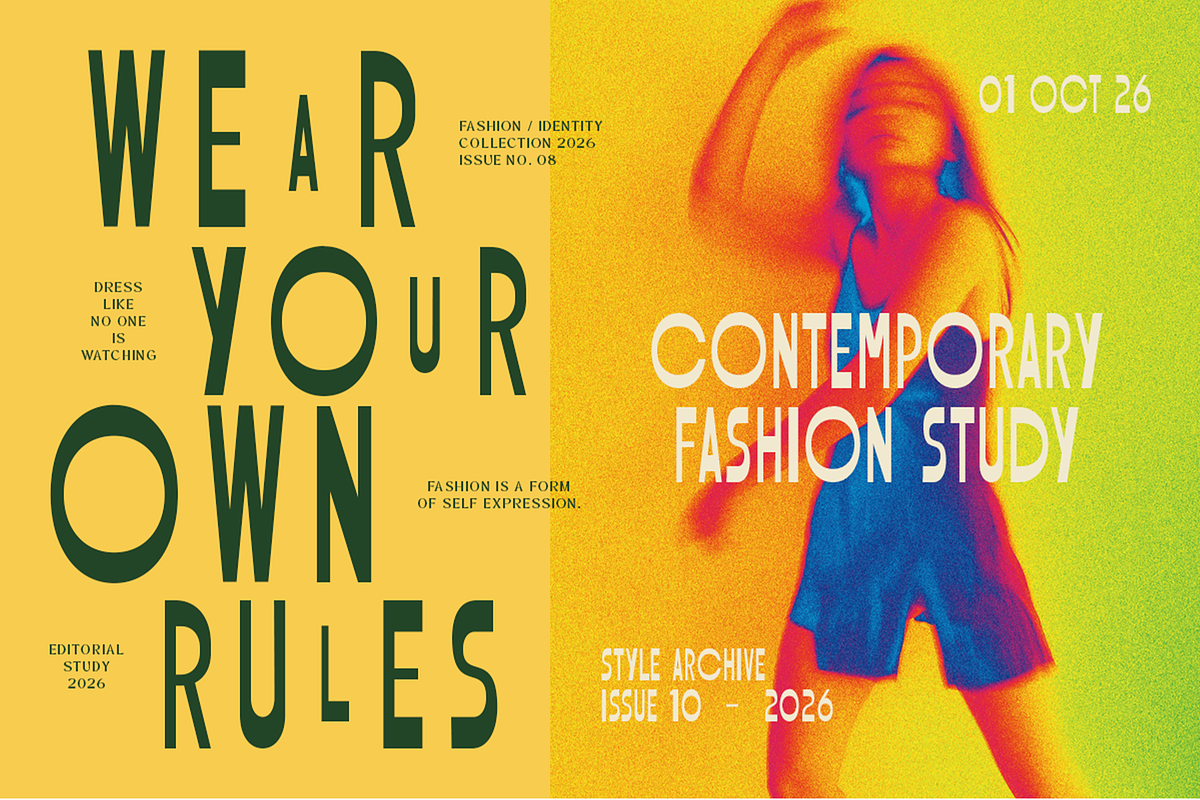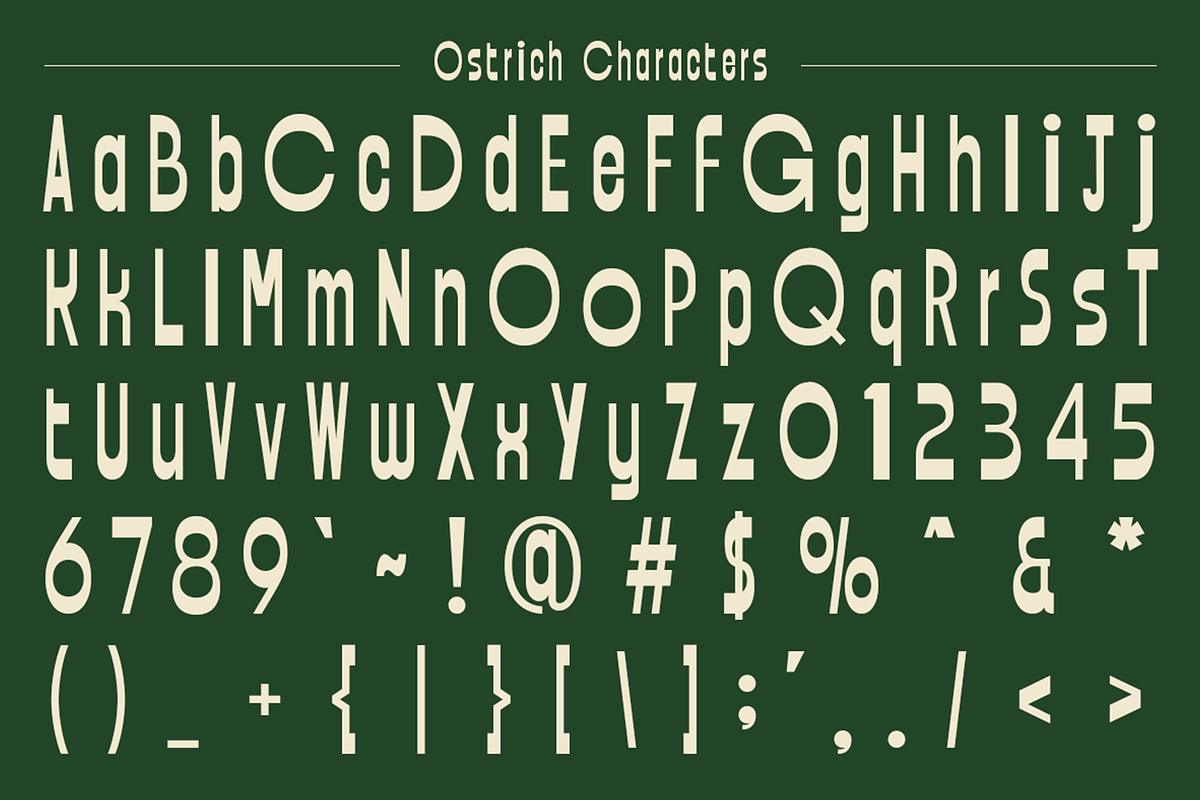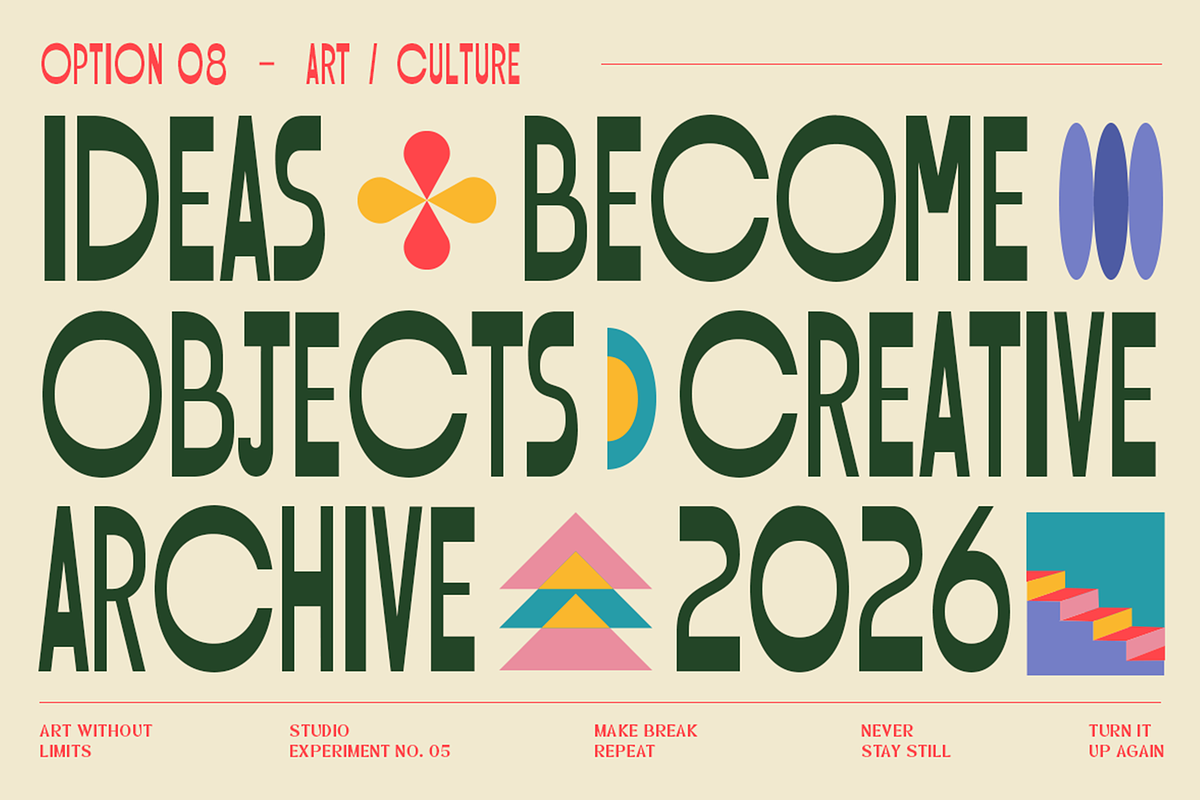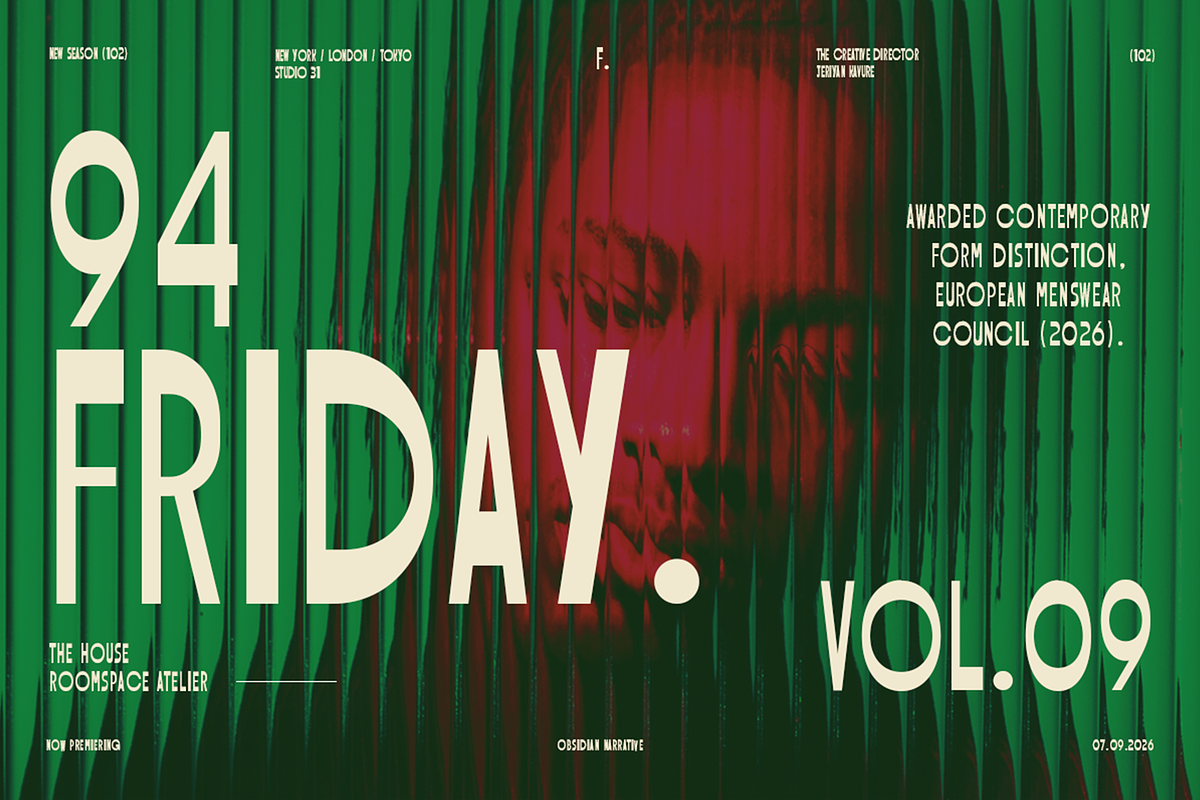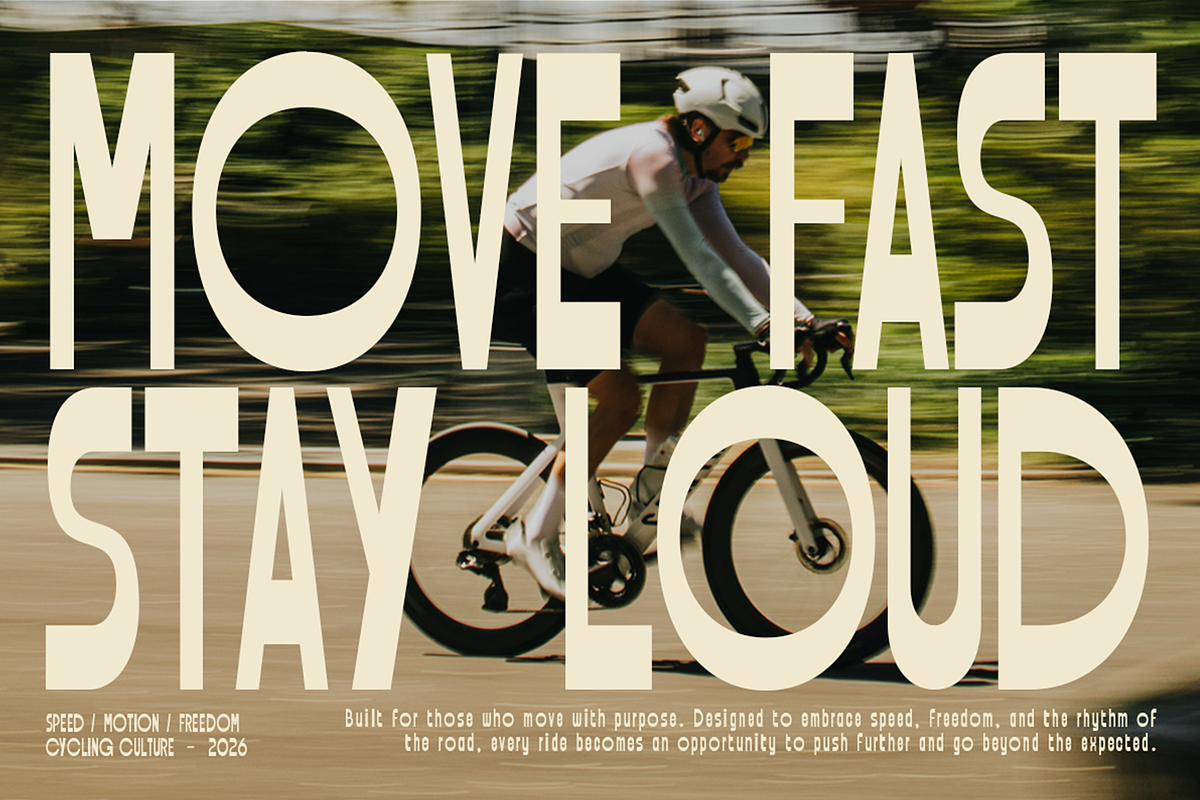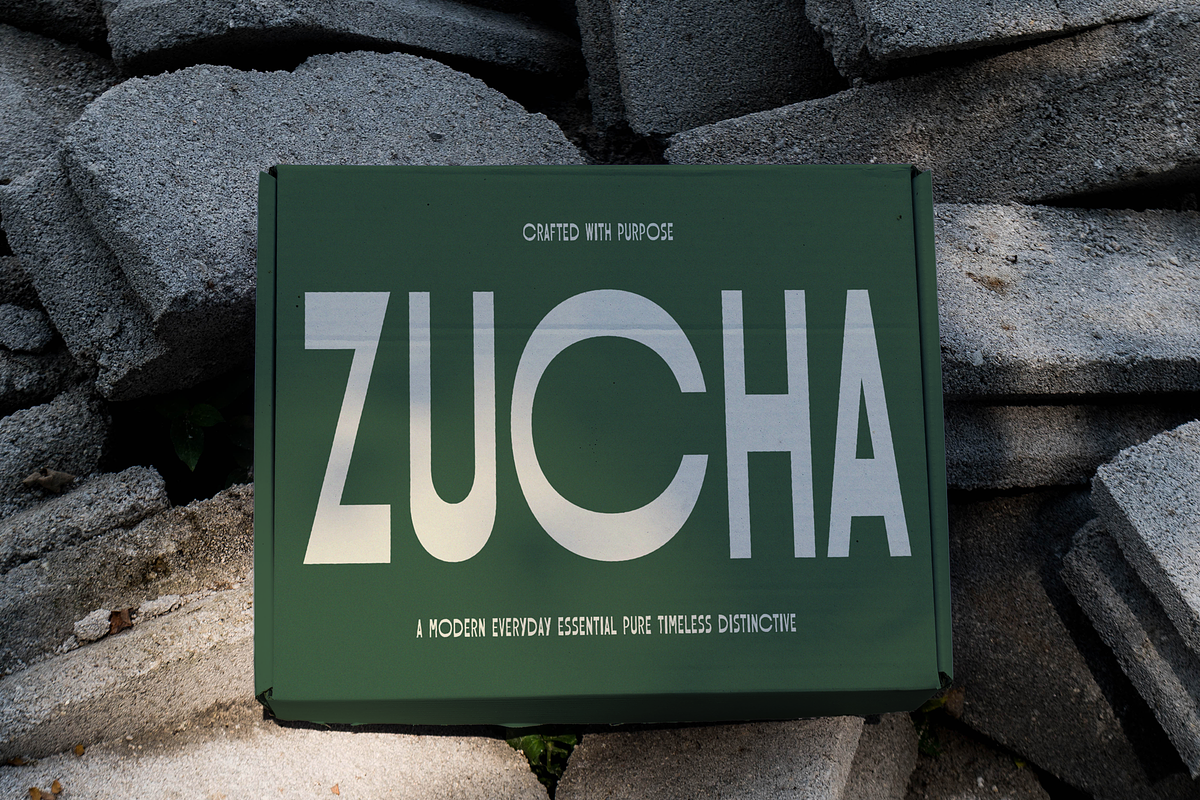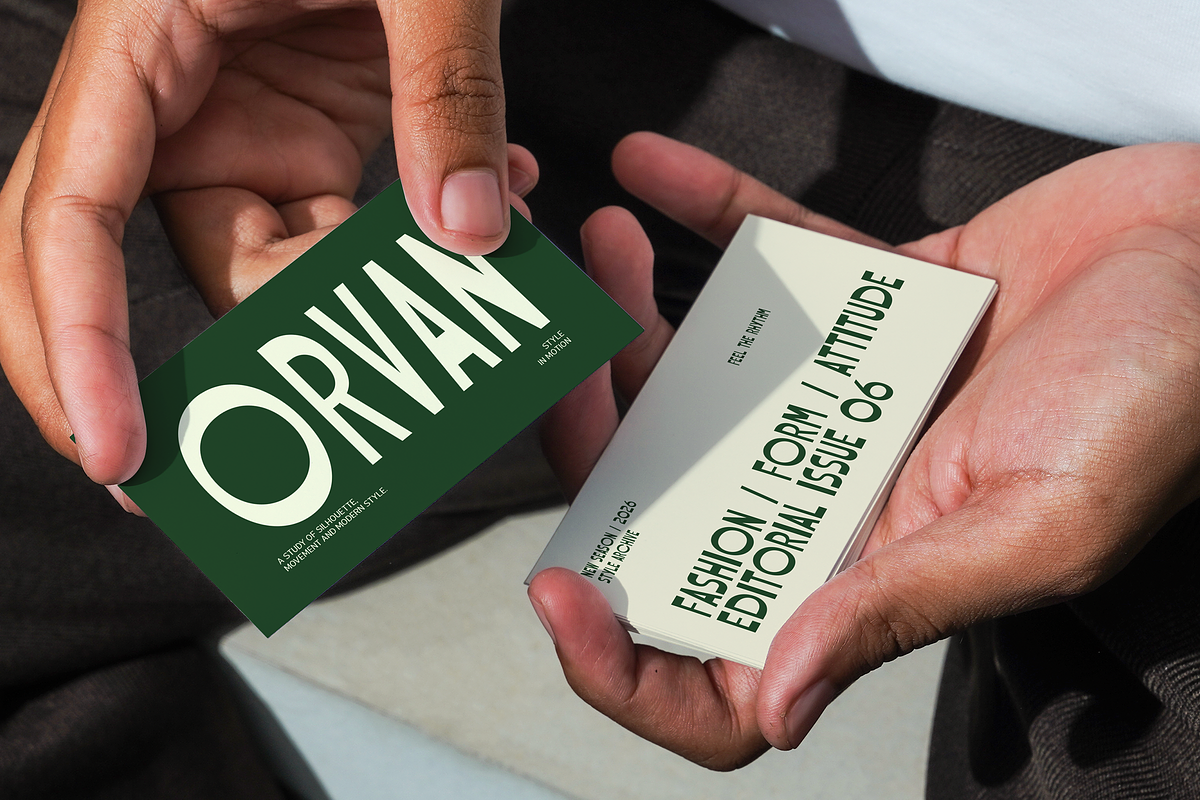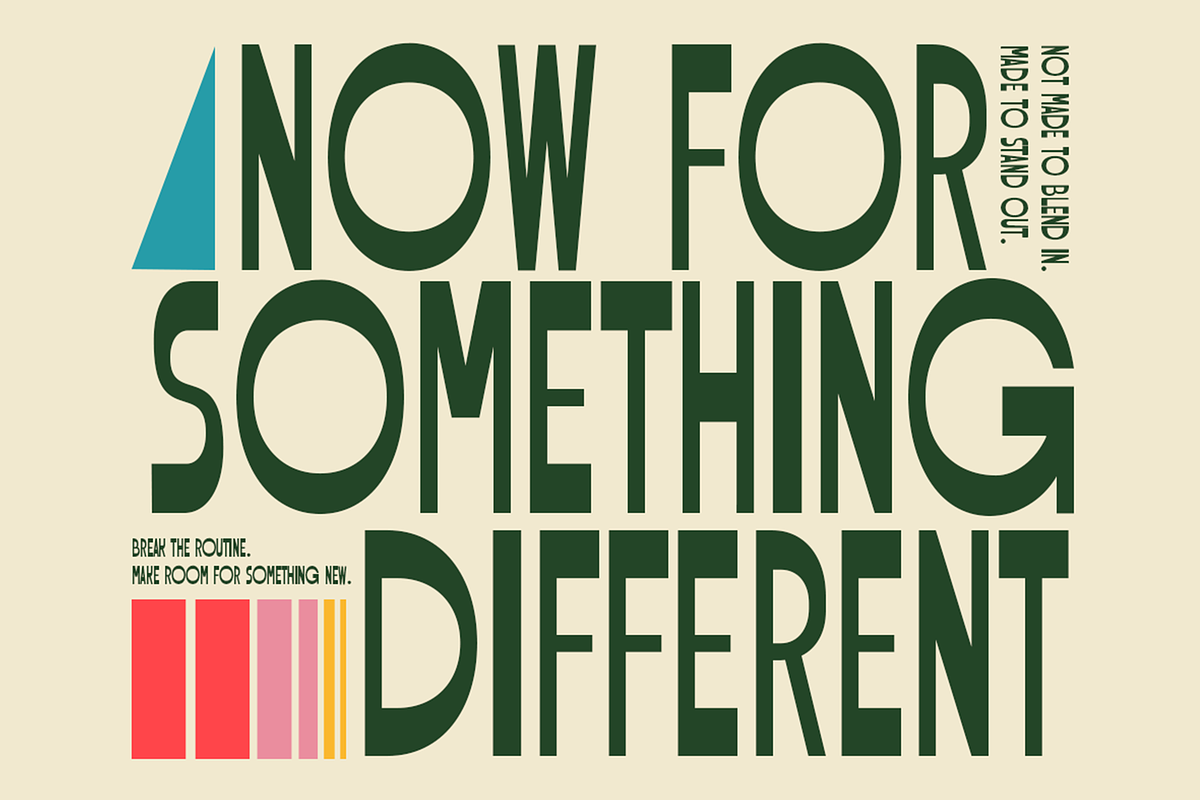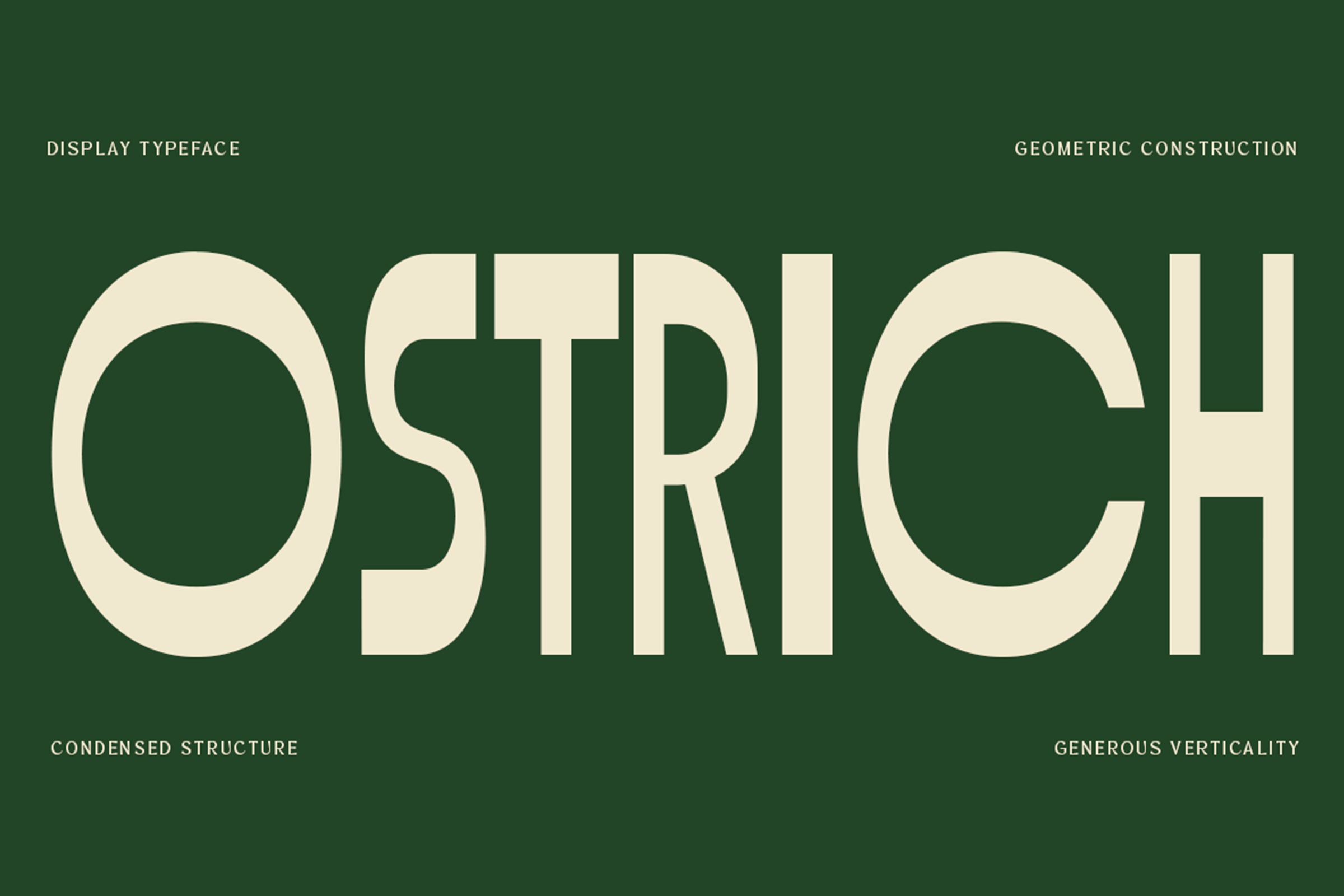
Ostrich - Condensed Display Font
Ostrich is a modern condensed geometric display font designed with tall proportions, narrow structures, strong vertical forms, and distinctive letterforms. Its clean geometric construction creates a bold typographic presence that works especially well for contemporary editorial, fashion, art, and branding projects.
Ostrich is designed for display use and works especially well for logos, branding, fashion identities, magazine covers, posters, headlines, packaging, editorial layouts, advertising, art direction, event graphics, social media designs, and other typography-focused projects. Its tall, condensed structure helps large headlines stand out while fitting naturally into narrow and structured layouts.
With its distinctive proportions and expressive geometric forms, Ostrich offers a versatile display style for creating bold headlines, modern wordmarks, editorial compositions, and contemporary visual identities. Whether you're designing a fashion campaign, magazine cover, art poster, packaging concept, or modern brand identity, Ostrich brings a strong and distinctive typographic character to your design.
Lowercase
Symbols & Special Characters
Accented Characters